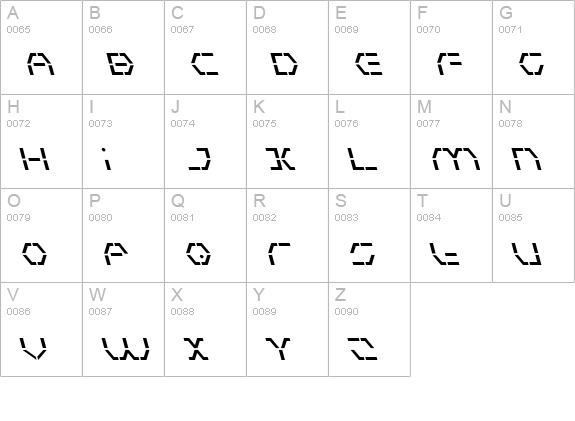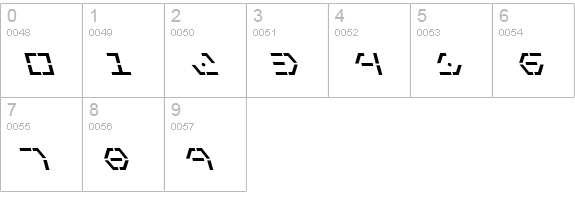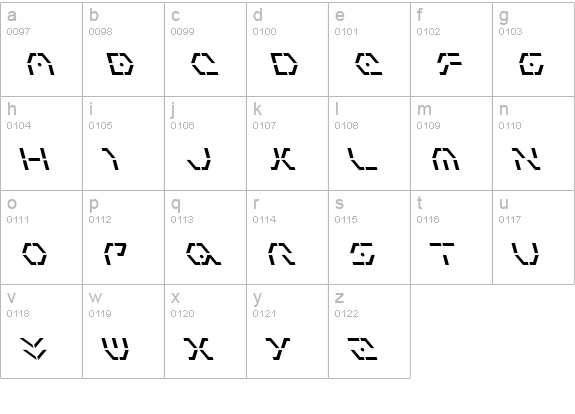
Zeta Sentry Leftalic font is a sleek and modern typeface that effortlessly combines sophistication with a touch of edginess. Its sleek, slanted design exudes a sense of power and confidence, making it the perfect choice for projects that demand attention and authority. The sharp angles and bold strokes of Zeta Sentry Leftalic font give it a distinctive flair that sets it apart from other typefaces. What makes Zeta Sentry Leftalic font even more appealing is that it is completely free to download at FontsMarket.com. This means that you can add this stylish and versatile font to your collection without any cost, making it a valuable asset for designers, creatives, and anyone looking to elevate their projects with a touch of modern elegance. Whether you're working on branding, advertising, editorial design, or any other creative project, Zeta Sentry Leftalic font is sure to make a bold statement and leave a lasting impression. Download it for free today and unleash the power of this unique and eye-catching typeface in your next design endeavor.